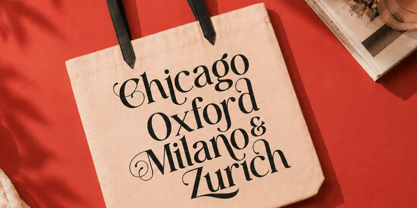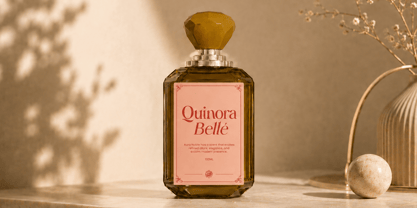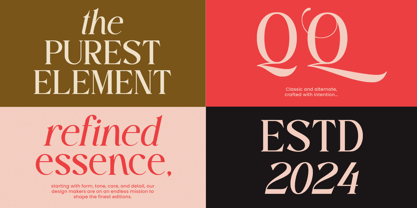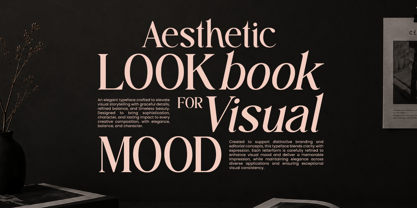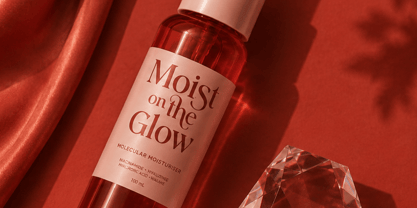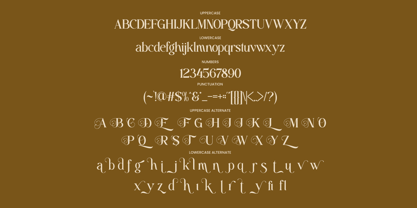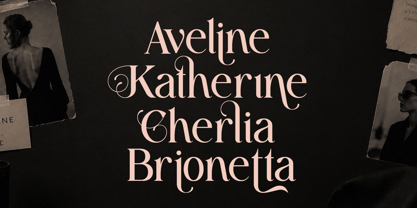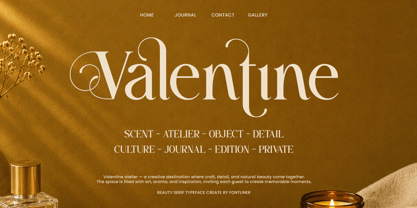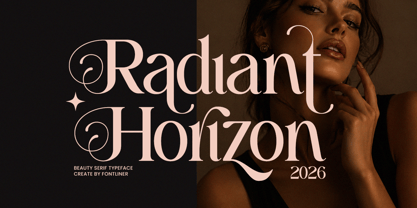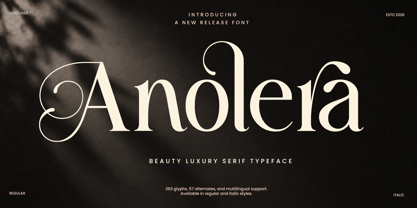
Anolera
Anolera is a refined luxury serif typeface that embodies elegance, beauty, and timeless sophistication. Designed with graceful curves, delicate contrast, and beautifully crafted alternates, Anolera brings a distinctive fashion-forward character to every design. The font effortlessly combines classic serif foundations with decorative details, creating a luxurious aesthetic perfect for modern branding and premium visual identities.
Featuring an extensive collection of stylistic alternates, swashes, and multilingual support, Anolera allows designers to create unique and memorable typography compositions. From high-end logos and editorial headlines to cosmetic packaging, perfume labels, fashion campaigns, and wedding stationery, every letter is crafted to deliver elegance, charm, and exclusivity.
Anolera is perfect for beauty brands, luxury boutiques, magazines, jewelry collections, skincare products, or sophisticated lifestyle businesses, Anolera provides the perfect balance between readability and artistic expression. Its graceful letterforms and premium styling make it an ideal choice for projects that demand a refined and luxurious visual presence.